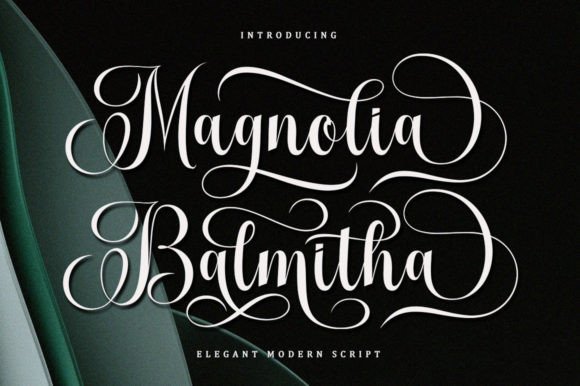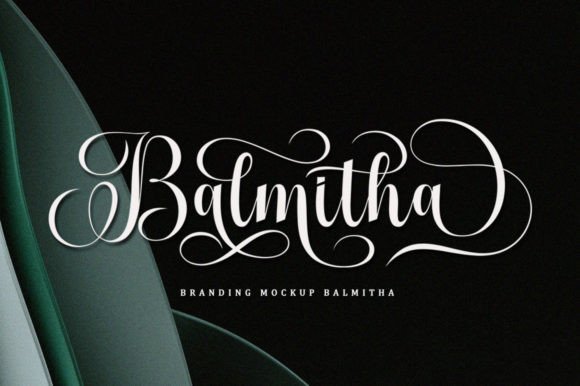
About Magnolia Balmitha Font
Magnolia Balmitha is an exquisite handwritten font, masterfully designed to become a true favorite. It maintains its classy calligraphic influences while feeling contemporary and fresh. Fall in love with it and bring your projects to the highest levels! This font is PUA encoded which means you can access all the glyphs and ligatures with ease!